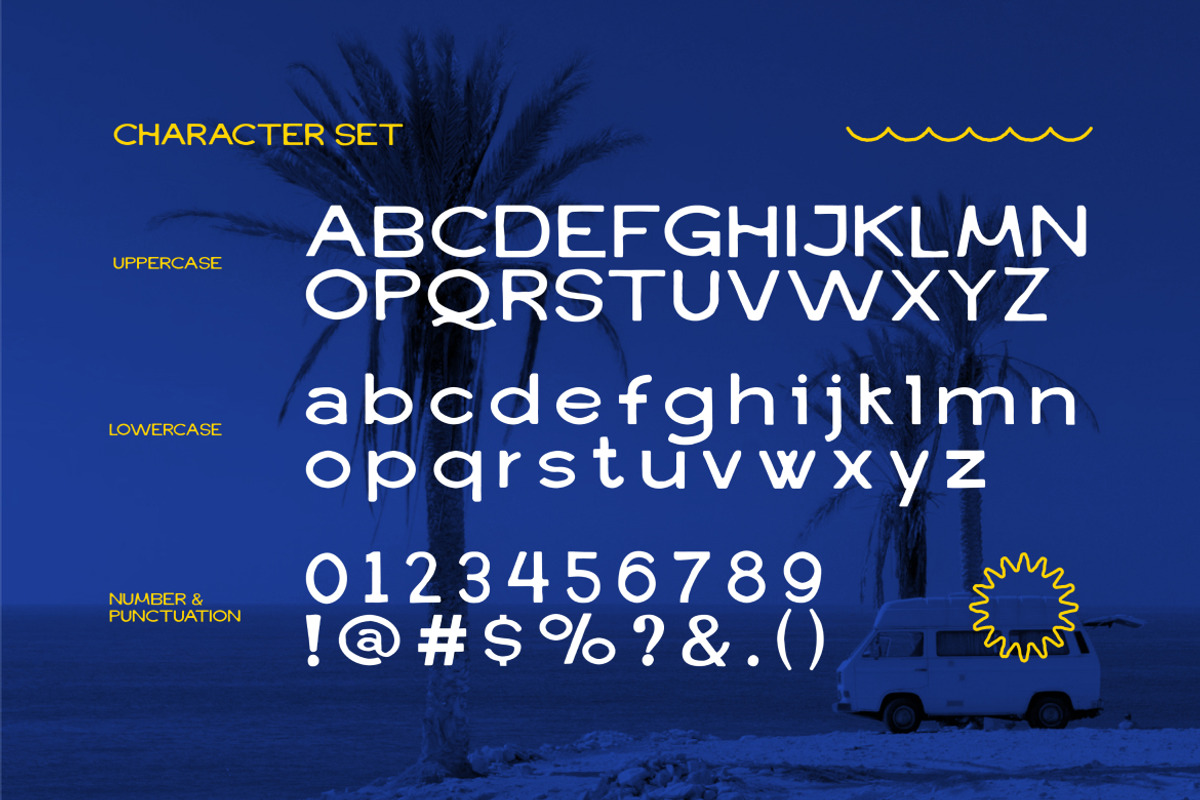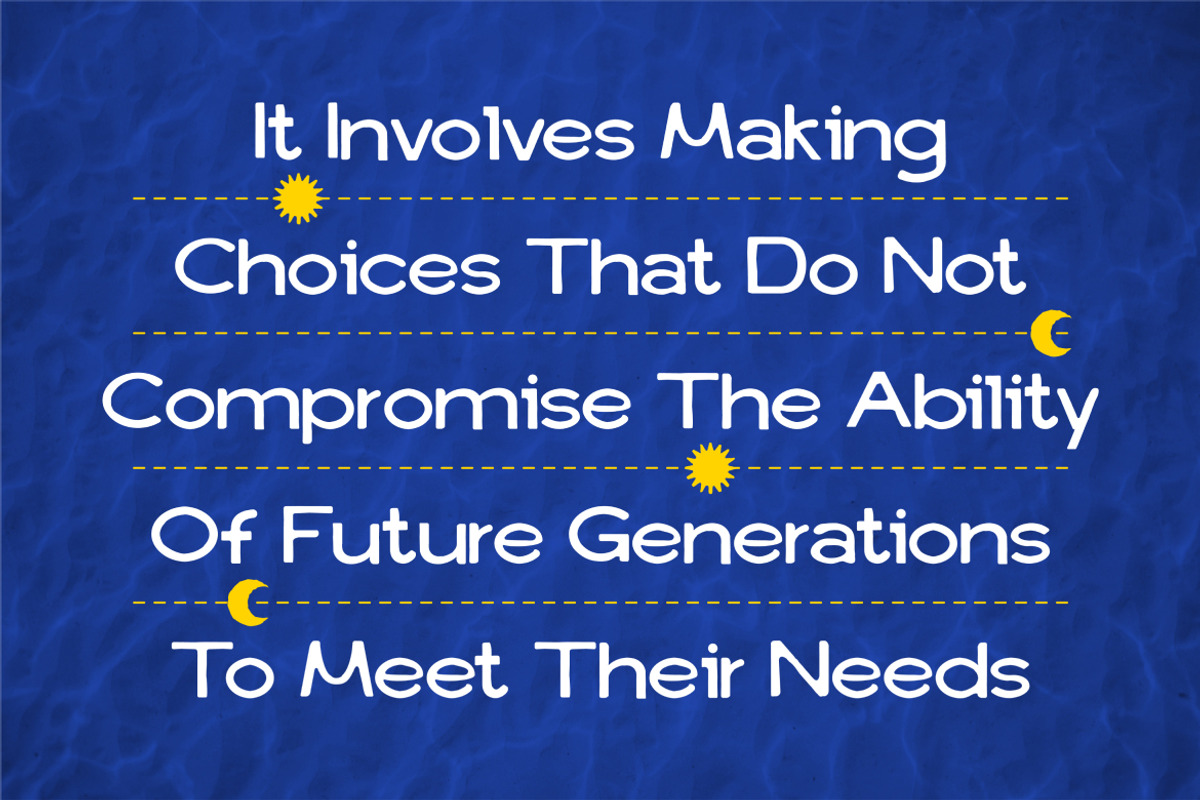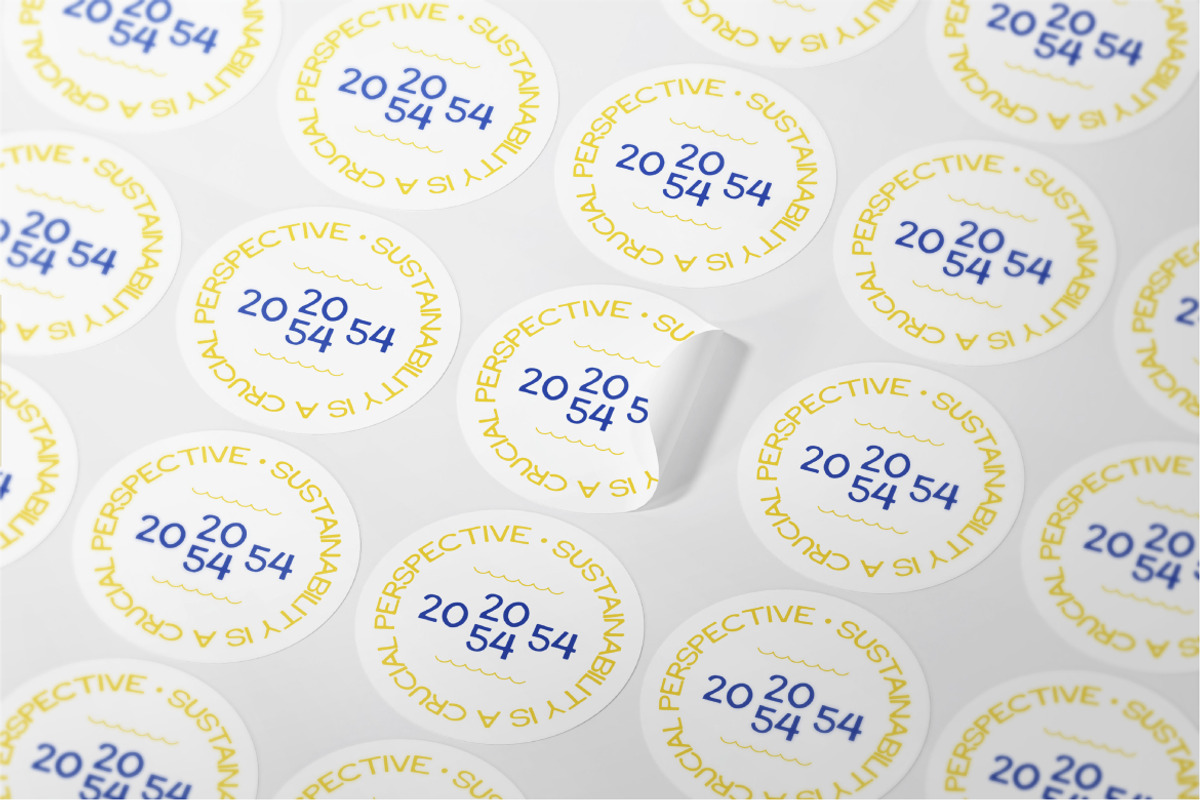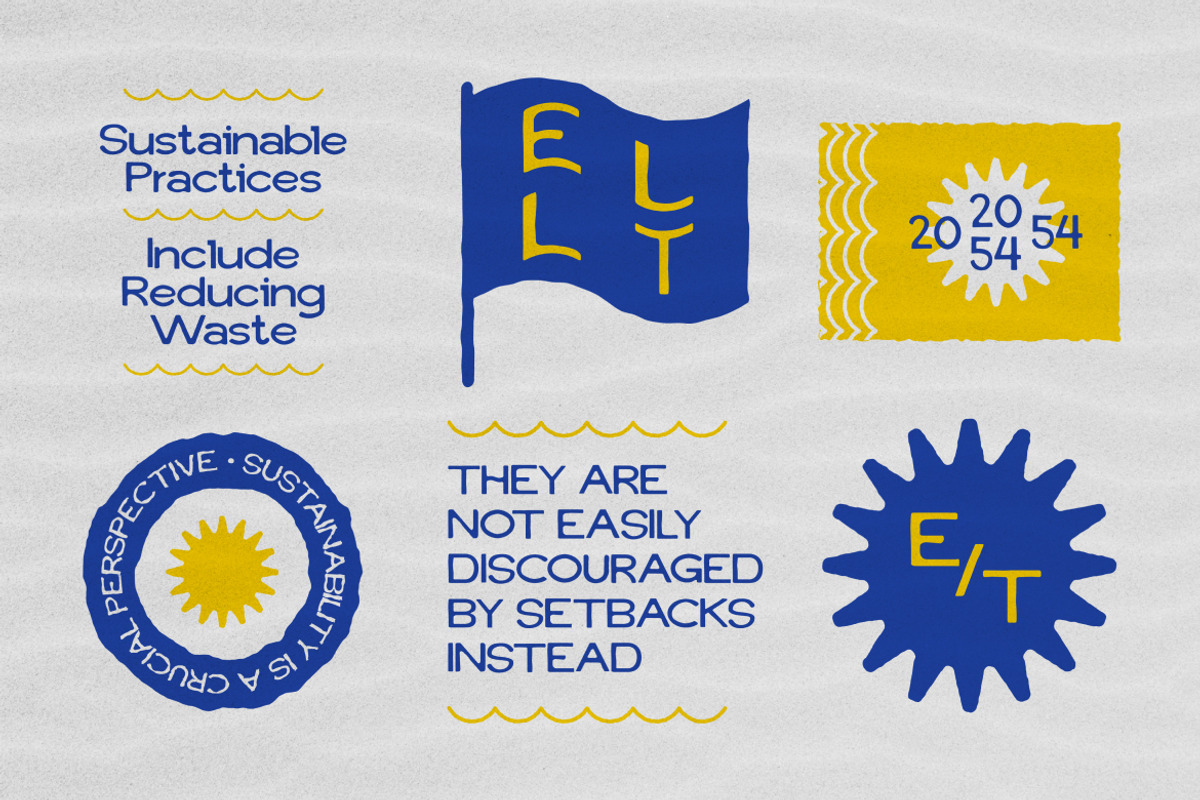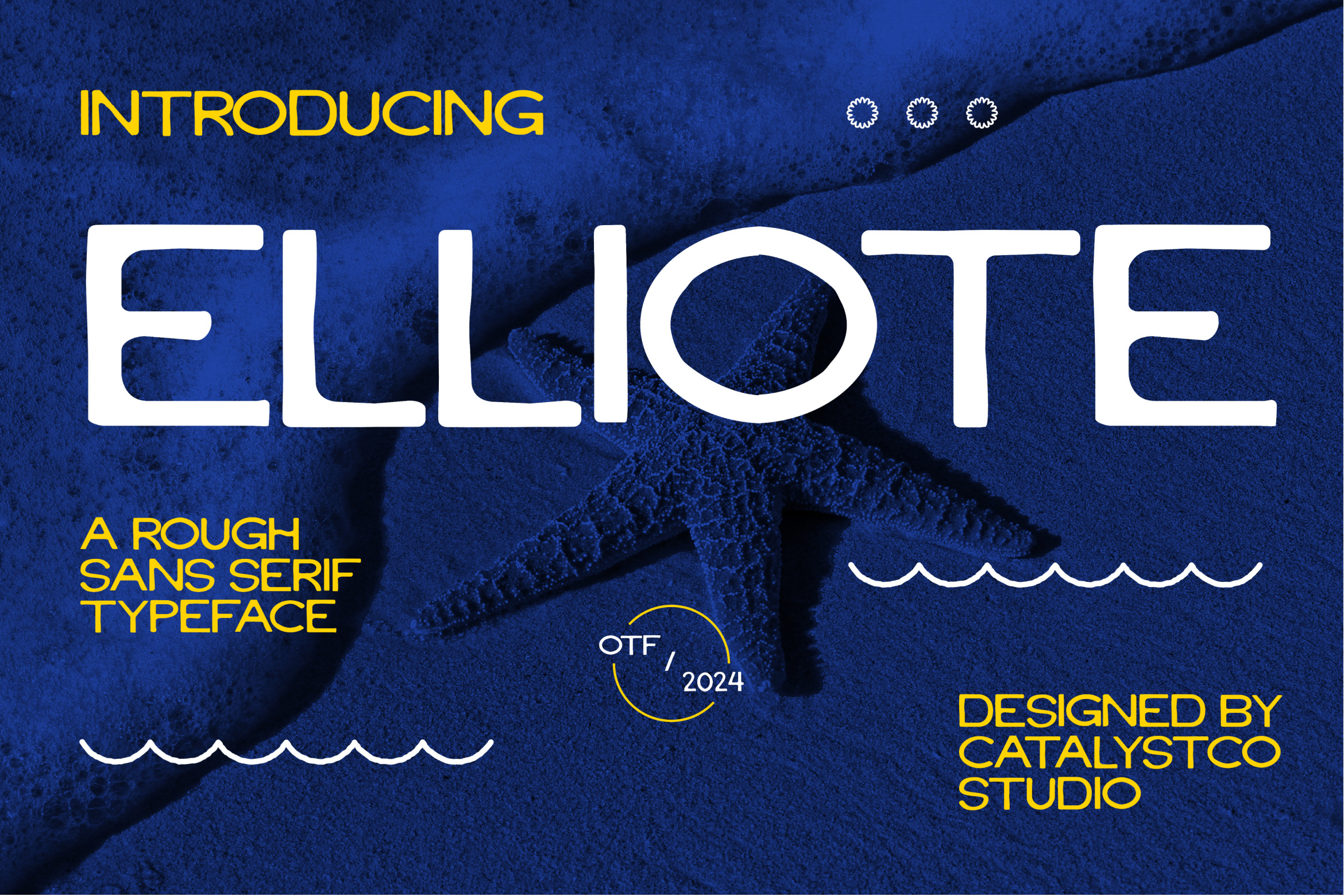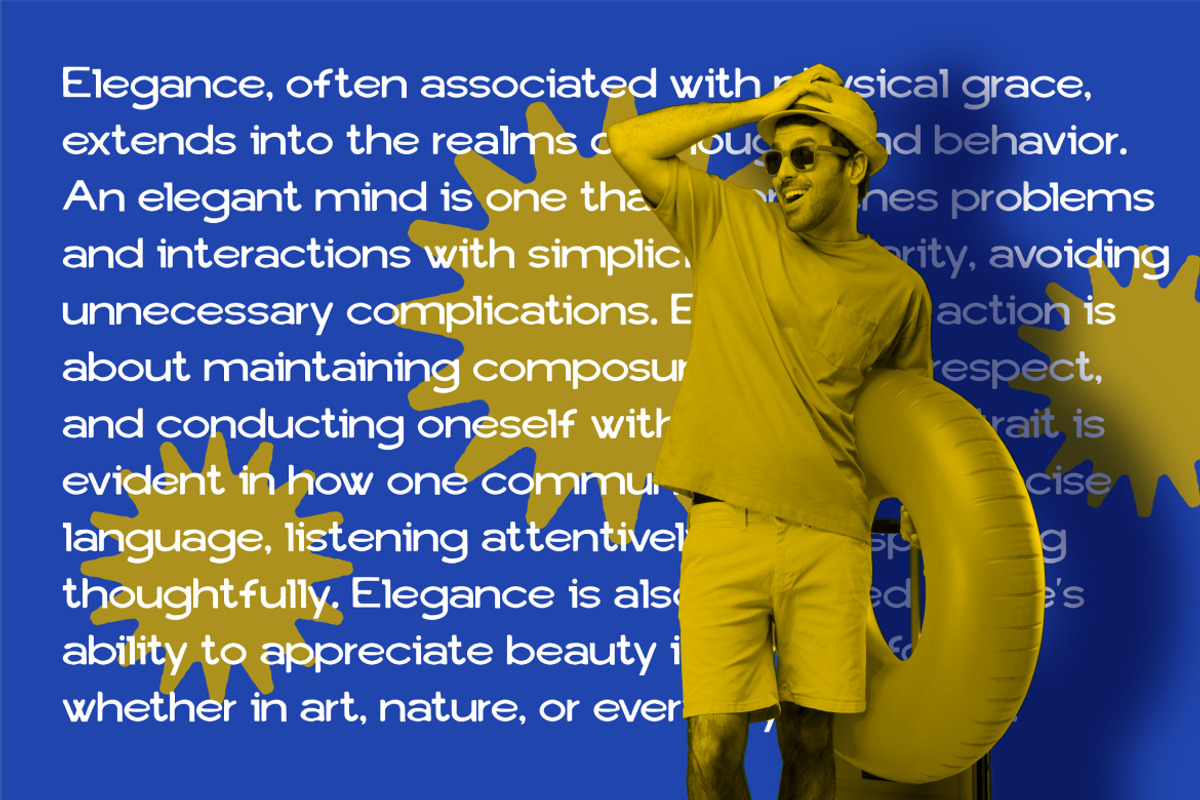
Elliote Rough Sans Serif Font
Elliote Rough Sans Serif Font typeface excellent used for the manufacture quote text, logotype, header magazine, and many more.
- Numeral & Punctuations